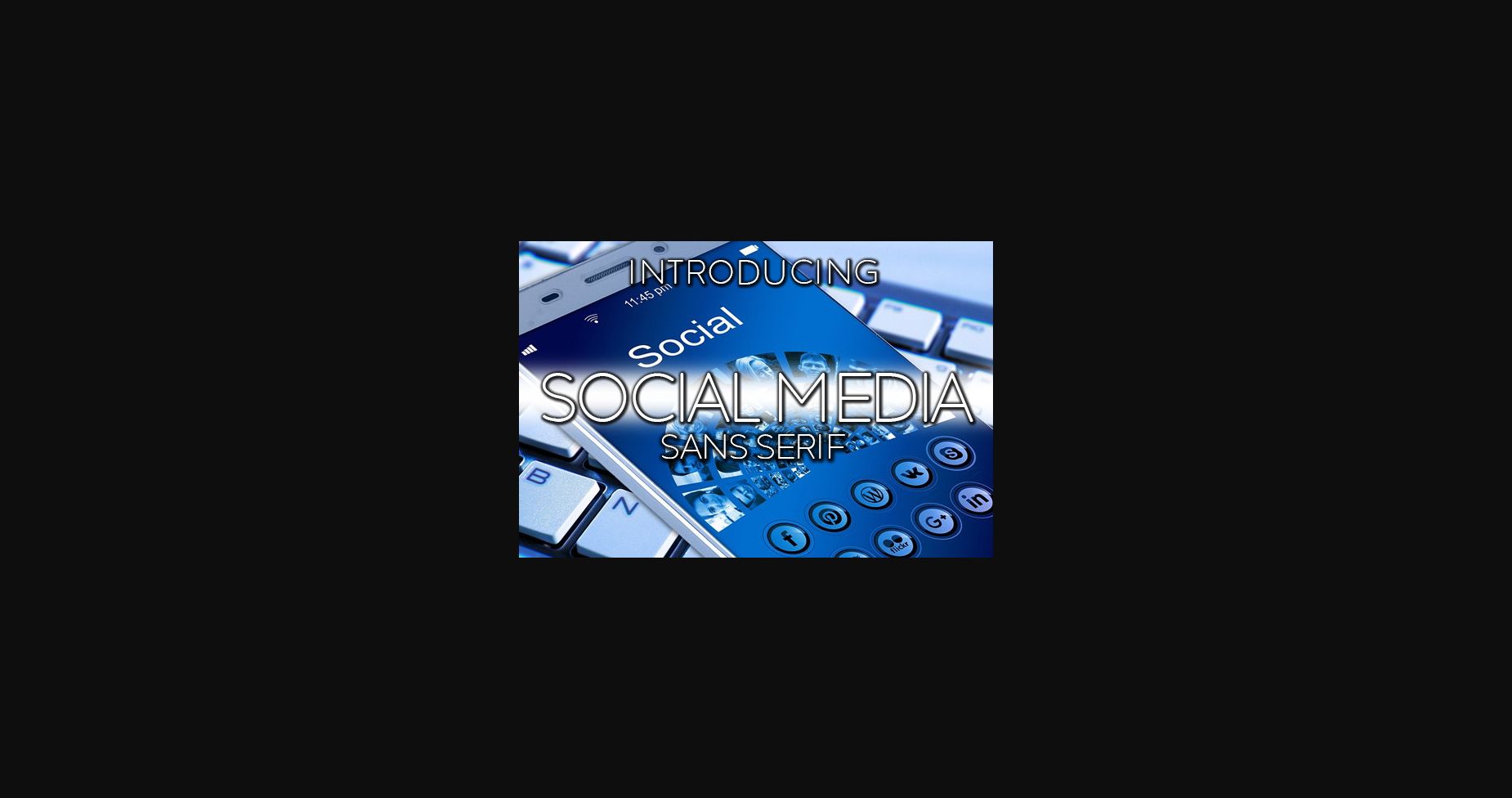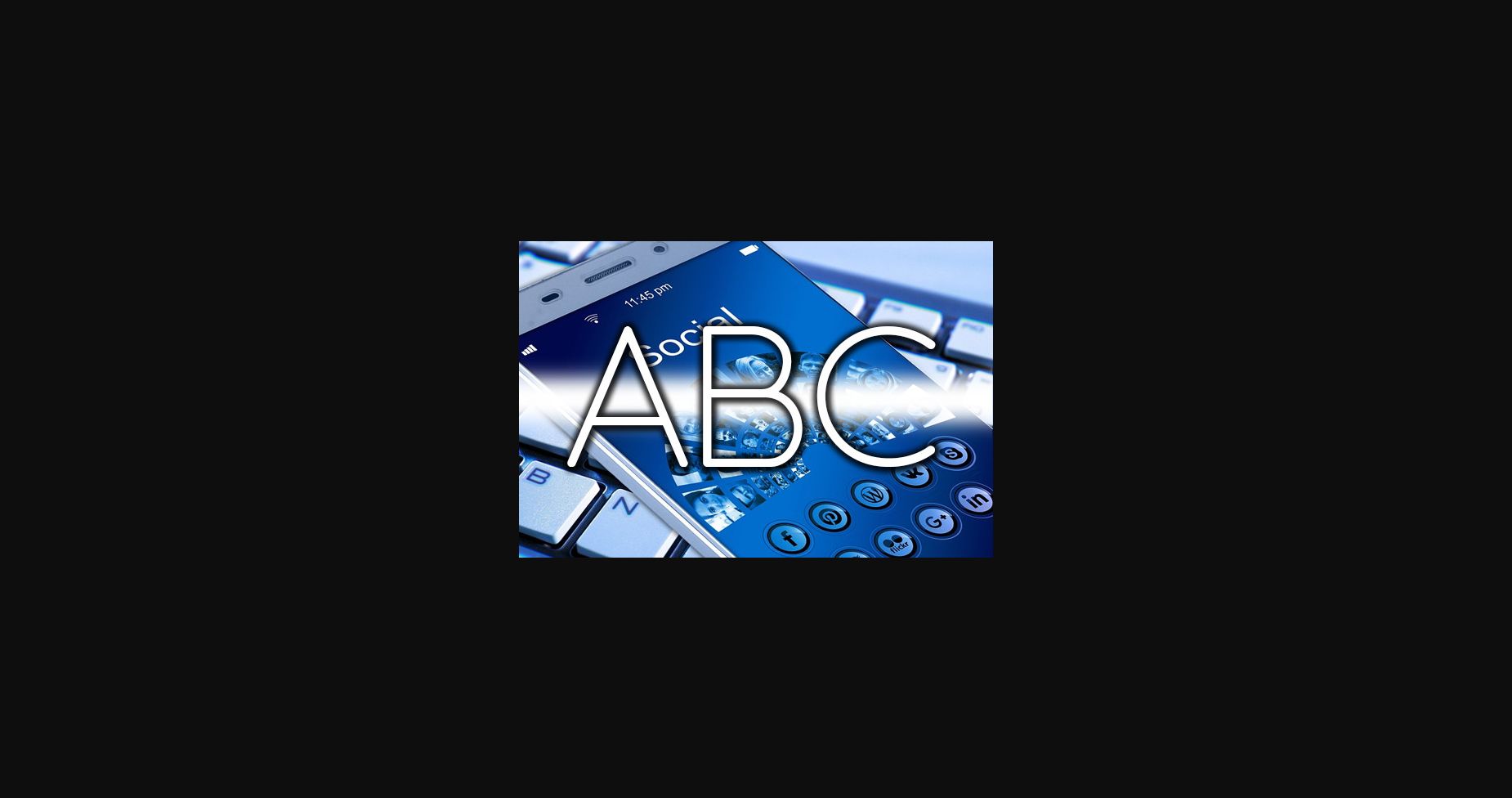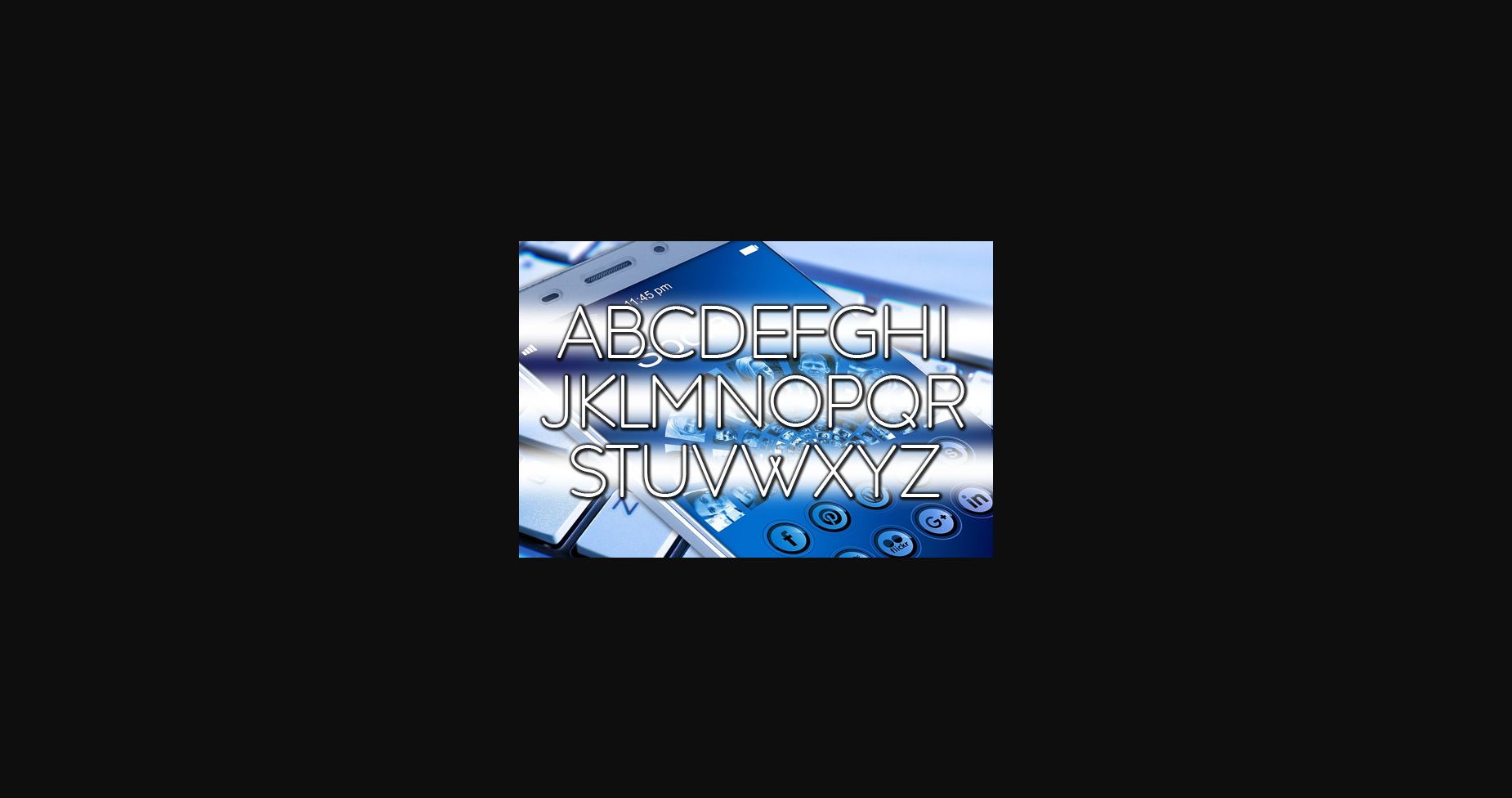
Social Media Font
About Social Media Font
Say hello to a modern and light sans-serif font that’s perfect for designs that need a touch of airy elegance. Social Media’s slim and refined letterforms create a sense of delicacy and grace, making it ideal for fashion, beauty, and lifestyle brands. This typeface is perfect for capturing a sense of effortless chic.